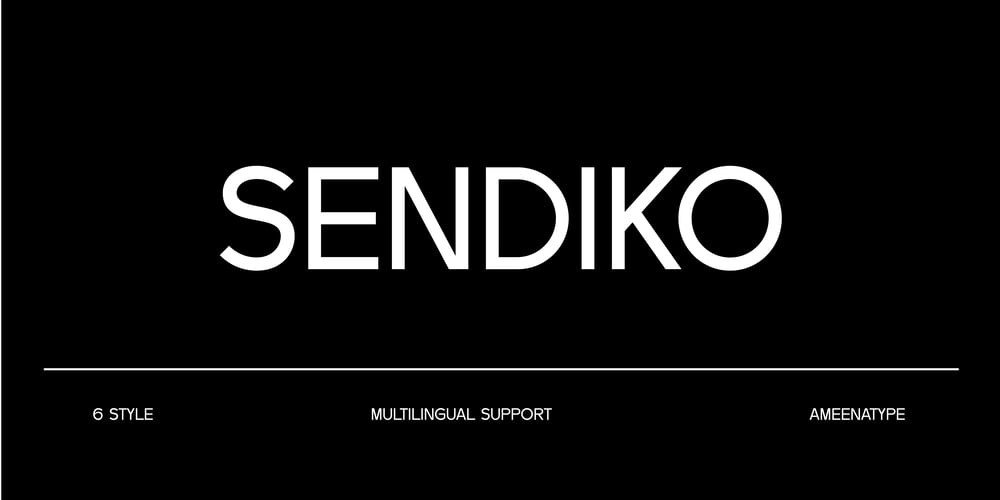
Sendiko Font Family was designed by Syaiful Rizal Muhaimin and published by Ameenatype. Sendiko contains 6 styles and family package options. Sendiko sans serif has a clean and modern design that makes it very popular in a variety of applications, from graphic design to digital typography. The main characteristics of sans serif fonts are simple and firm lines, creating a minimalist impression and easy to read.The existence of this font reflects elegance without being excessive, making it ideal for use in branding, advertising and websites. Well-known examples of sans serif fonts are Helvetica, Arial, and Futura, each bringing its own feel and character.Due to their high readability, sans serif fonts are often used in print and digital materials, including posters, brochures, and user interfaces. They also provide a modern and professional feel, suitable for a variety of industries, from technology to fashion.With variations in thickness and shape, sans serif fonts offer great design flexibility, allowing designers to express brand identity in a compelling and effective way.